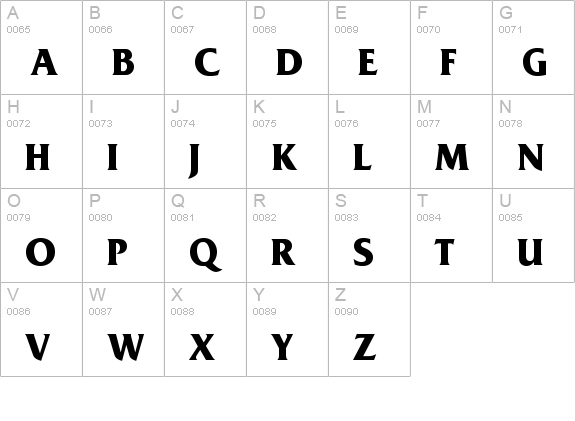
Friz Quadrata Bold is a strong, high-contrast variant in the Friz typeface family \xE2\x80\x94 well suited to headlines, attention-grabbing titles, and strong calls-to-action.
Friz Quadrata Bold is a bold and commanding typeface that exudes strength and sophistication. With its clean lines and sharp angles, this font is perfect for making a bold statement in any design project. Whether you're creating a poster, logo, or website, Friz Quadrata Bold will ensure that your message is loud and clear. What sets Friz Quadrata Bold apart is its versatility. This font can be used in a variety of contexts, from elegant invitations to modern branding. Its bold weight demands attention and adds a touch of drama to any layout. And the best part? Friz Quadrata Bold is available for free download at FontsMarket.com. You can easily add this powerful font to your collection and start using it in your projects right away. Don't miss out on the opportunity to elevate your designs with Friz Quadrata Bold - download it today and let your creativity shine!